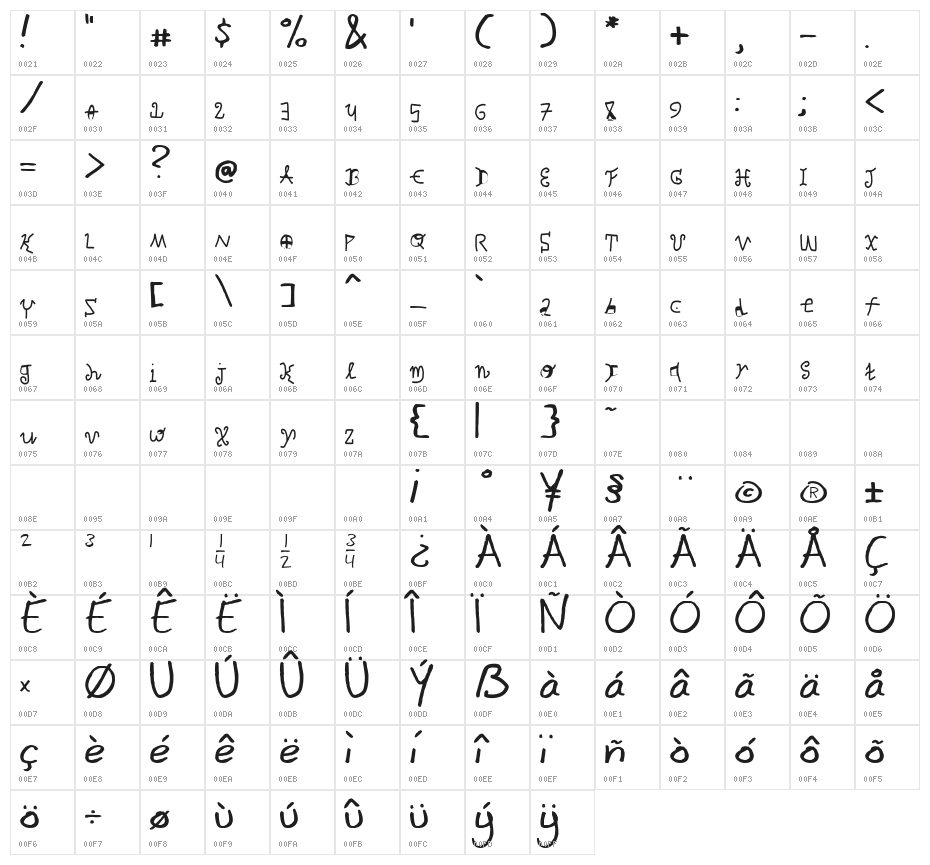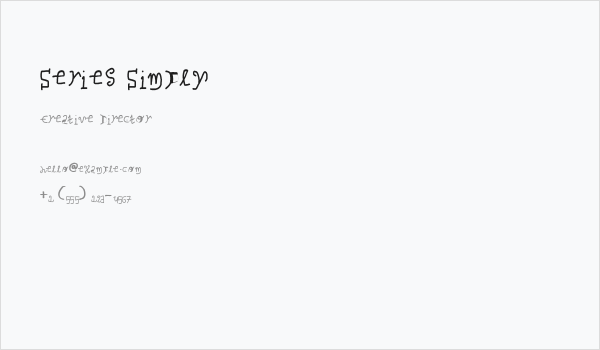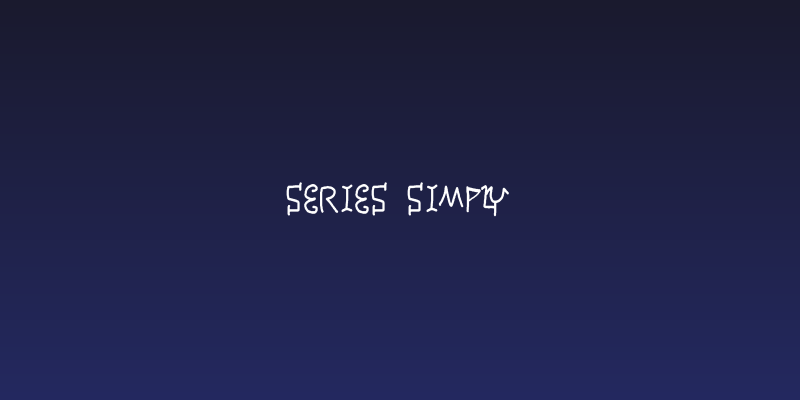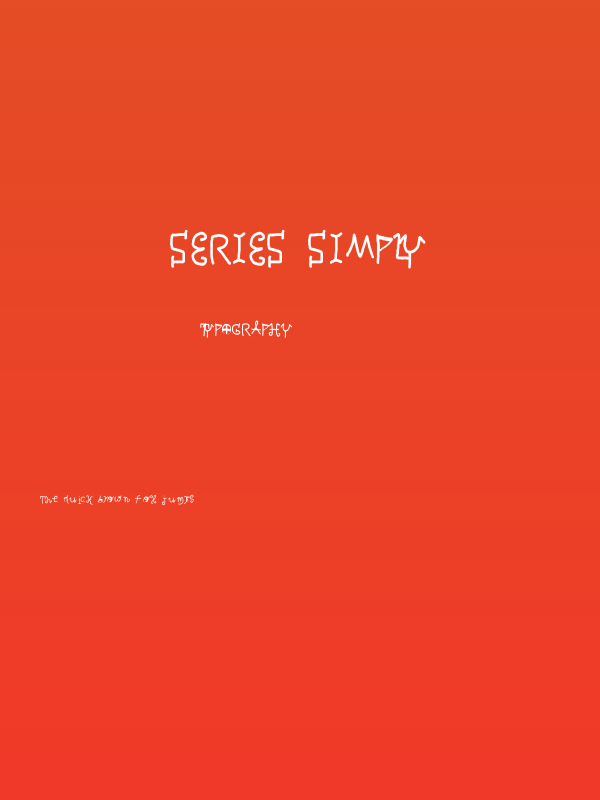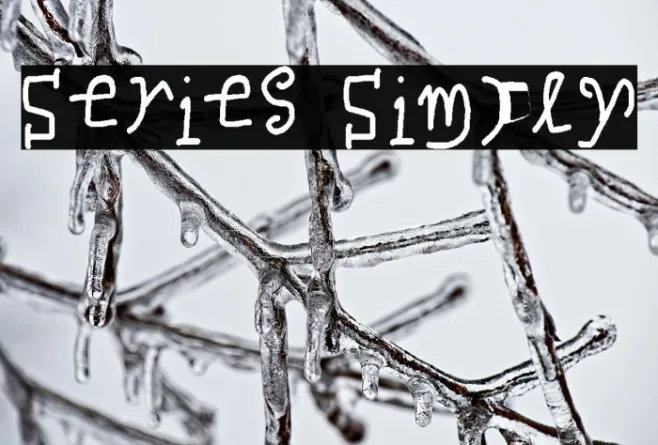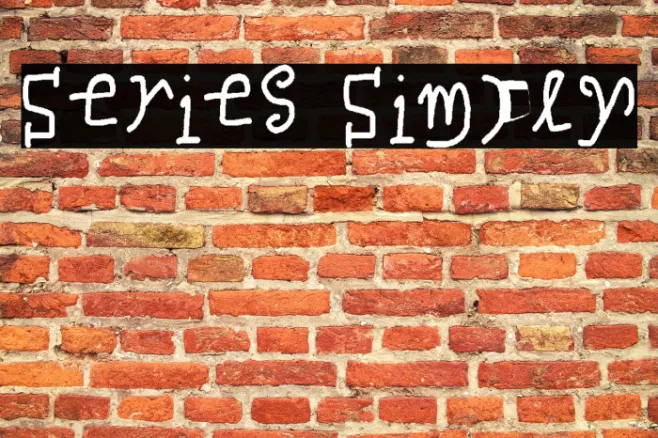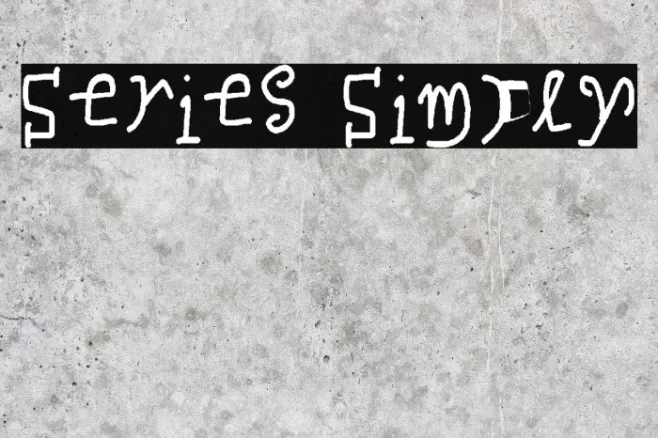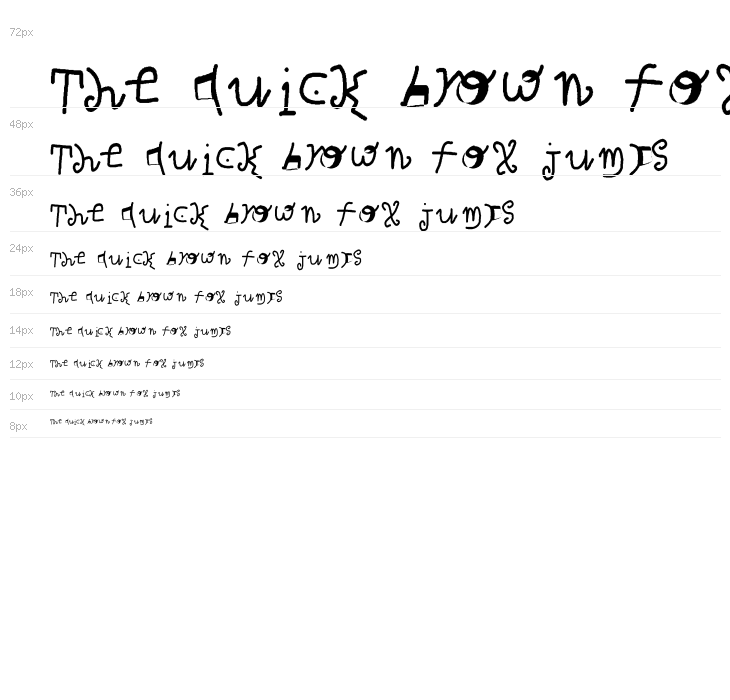
Series Simply Font
Series Simply Description
This font features a unique and artistic style, characterized by its playful and unconventional letterforms. Each character is crafted with a sense of whimsy, incorporating unexpected curves and angles that give it a distinctive appearance. The uppercase letters have a bold presence, while the lowercase letters maintain a consistent style with a slightly more delicate touch. Numbers and special characters follow the same creative design, ensuring a cohesive look across all elements. The font's hand-drawn quality adds a personal and informal feel, making it suitable for projects that aim to convey creativity and individuality.
| Overall Style | Artistic, Whimsical |
| Use Case | Headlines, Logos, Artistic projects |
| Proposed Projects | Ideal for creative projects such as children's books, artistic posters, and unique branding materials. |